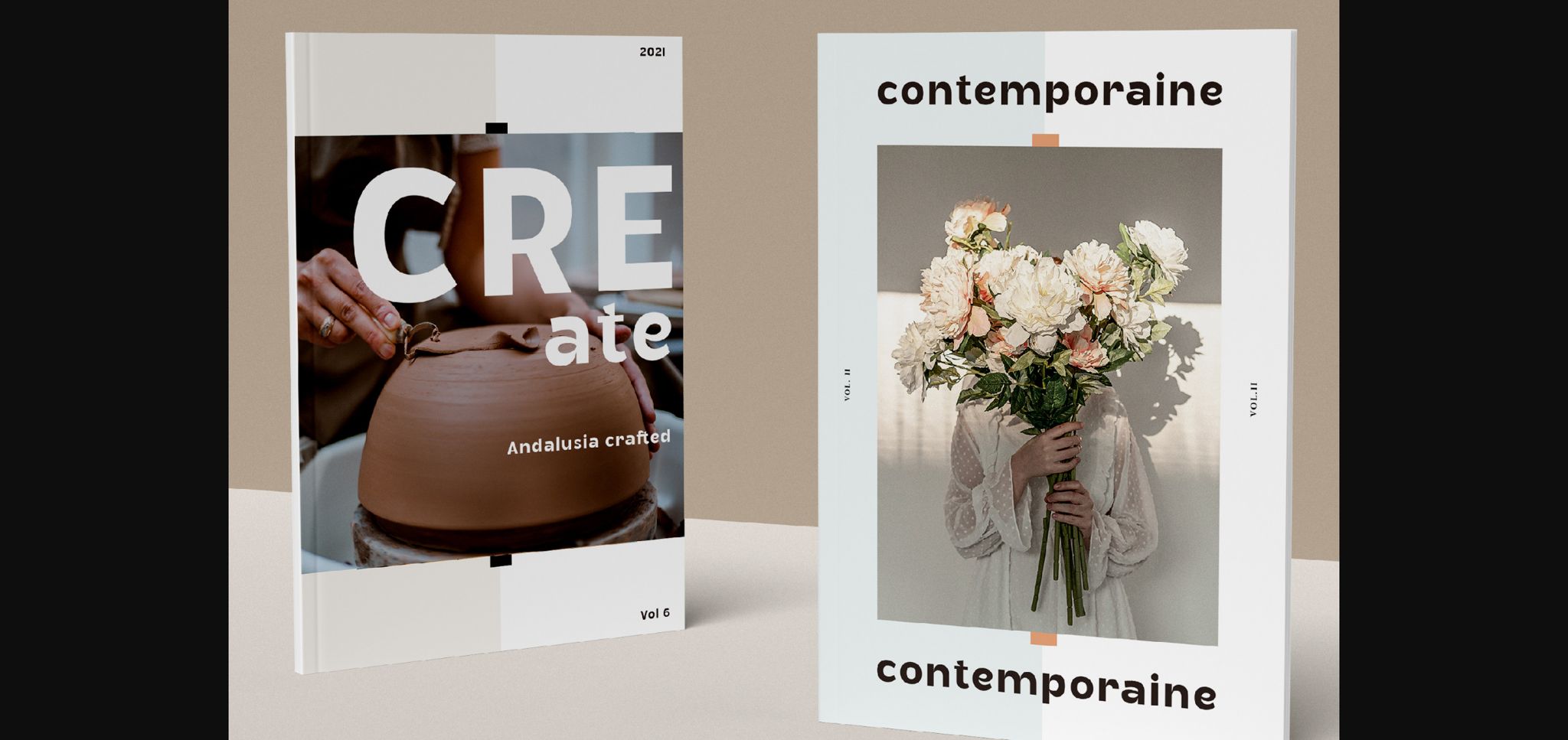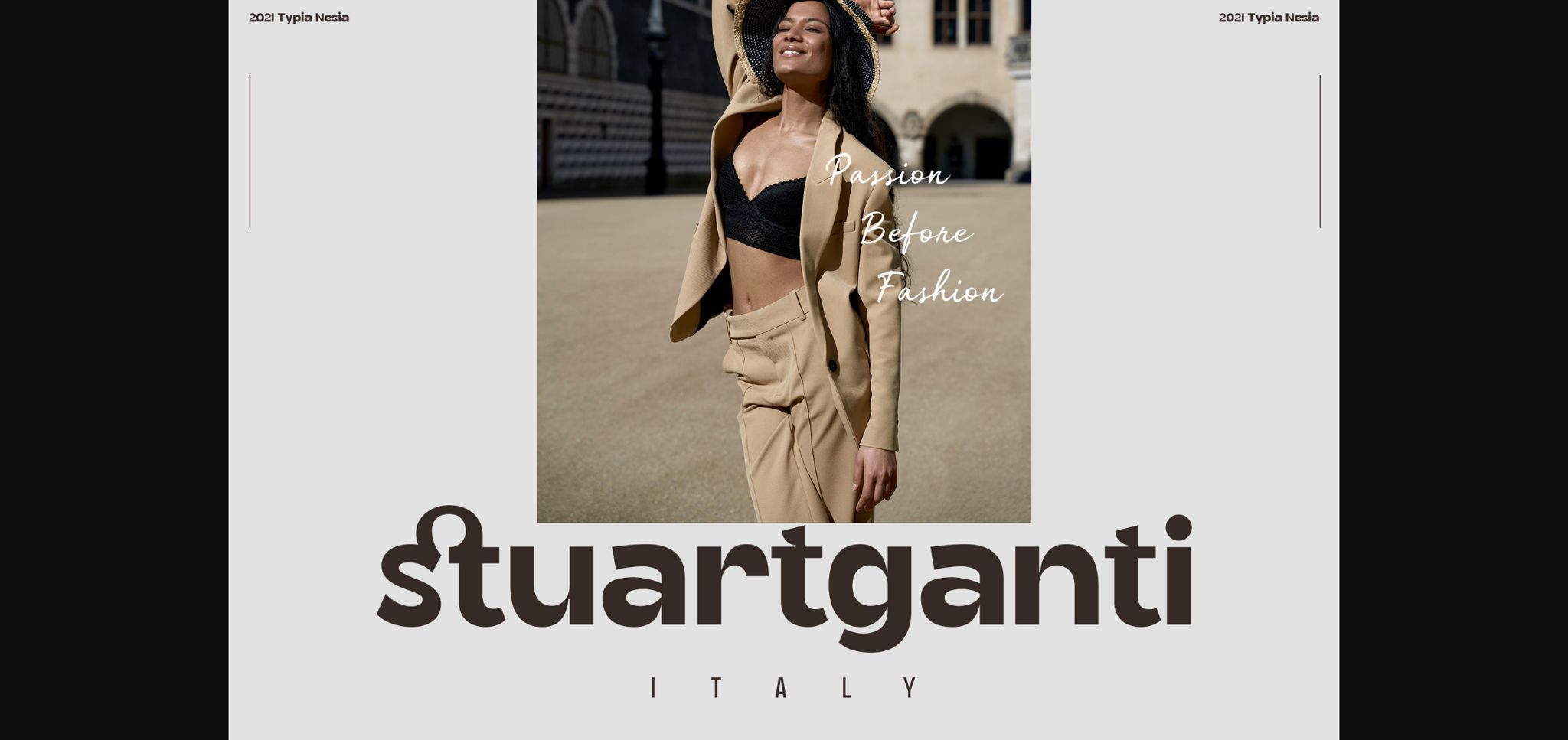
About Ghapter Font
Ghapter is a bold yet incredibly distinct sans serif font. It has a classy, elegant and modern look that can be used for logos, branding, invitations, stationery, wedding designs, social media posts, and much more!